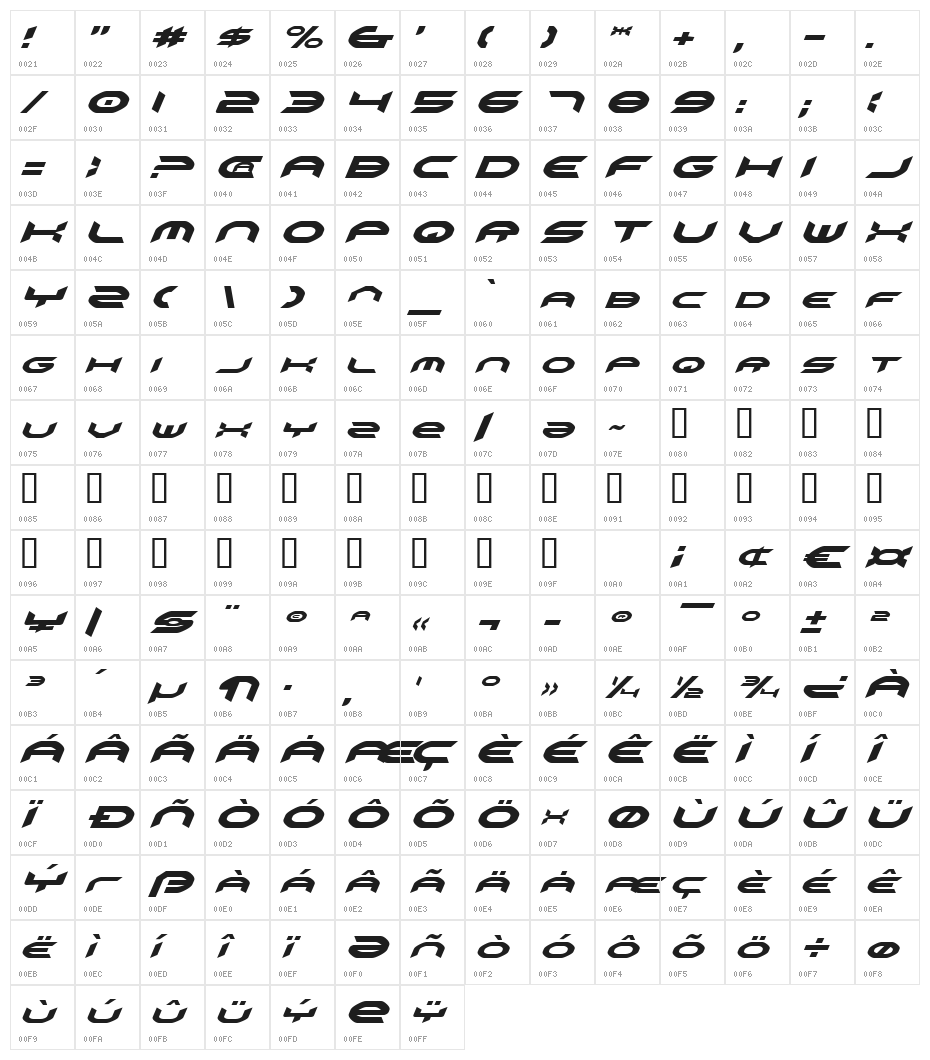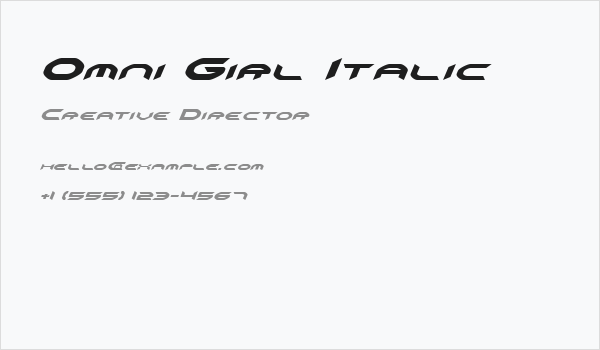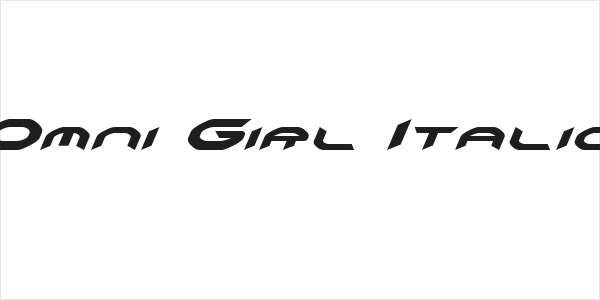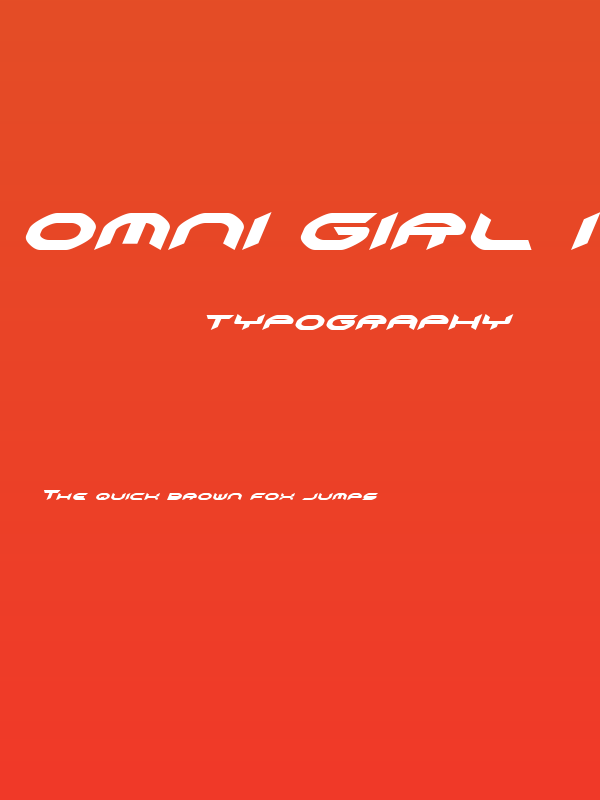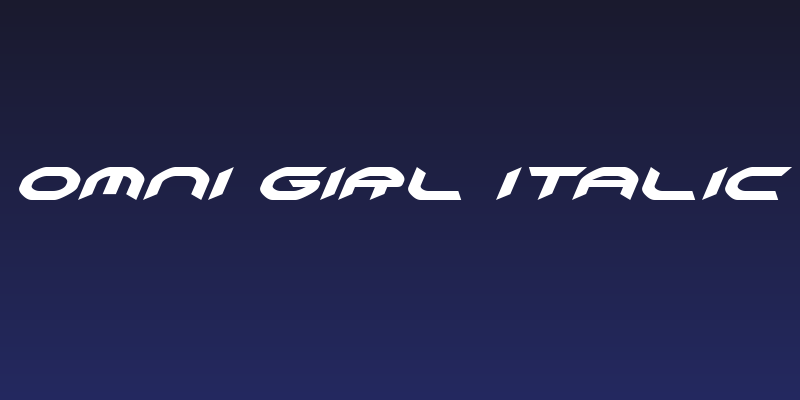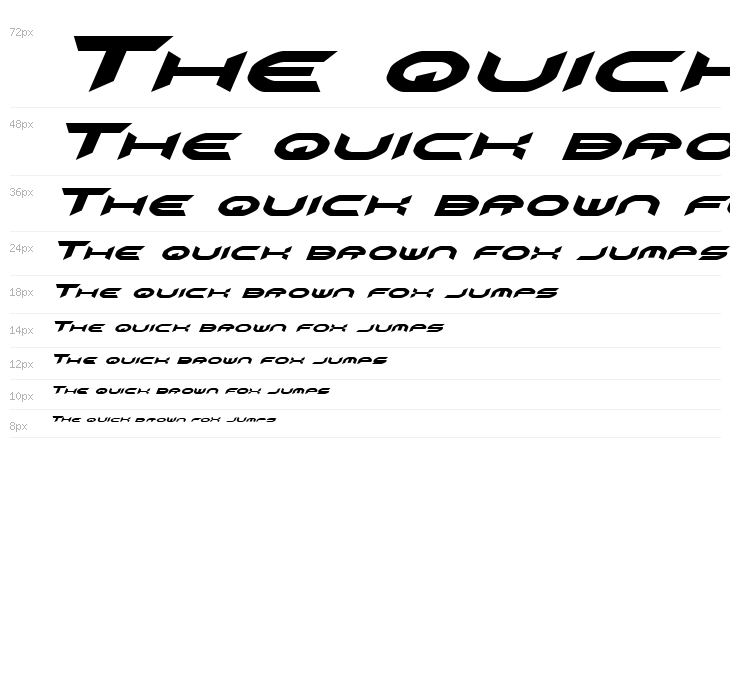
Omni Girl Italic Font
Omni Girl Italic Description
This font exhibits a futuristic and dynamic style, characterized by its italicized and angular letterforms. The design features sharp edges and a forward-leaning posture, giving it a sense of motion and speed. The uppercase and lowercase letters maintain a consistent geometric structure, while the numerals and special characters complement the overall aesthetic with their bold and distinctive shapes. The font's unique appearance makes it suitable for projects that require a modern and edgy look.
Proposed ProjectsIdeal for sci-fi themed designs, video game titles, technology branding, and modern advertising campaigns.